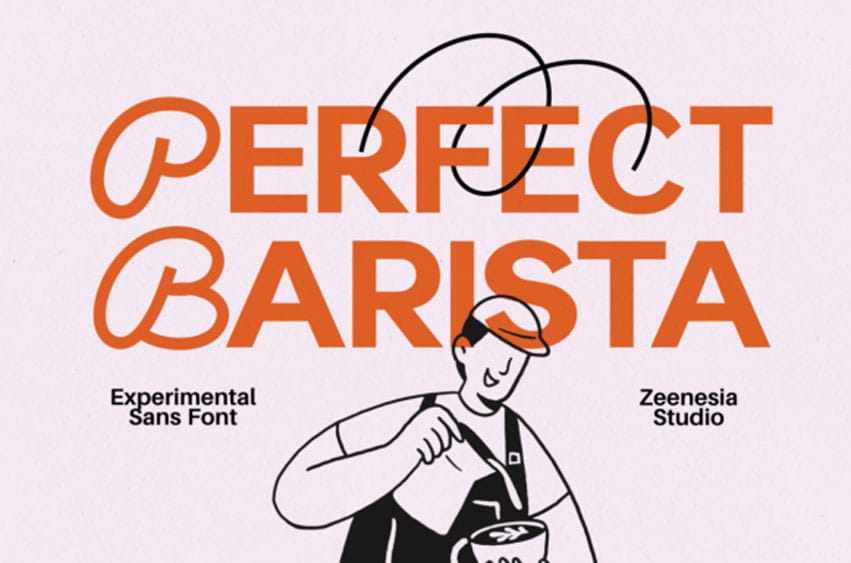
Perfect Barista Font is a modern experimental sans-serif typeface with a twist of hand-drawn flair, ideal for coffee shops, lifestyle branding, menu designs, and modern advertising.
The playful contrast between the clean sans and the swashy cursive gives it a trendy and approachable vibe, making Perfect Barista Typeface ideal for brands that want to feel personal, artisanal, and memorable.
Designed with a modern and creative touch, it offers a unique balance between structure and personality. Perfect for branding, coffee shop logos, posters, and packaging, this font brings a handcrafted charm that feels both warm and contemporary.